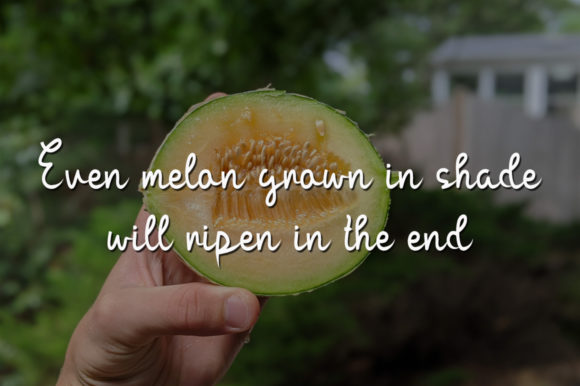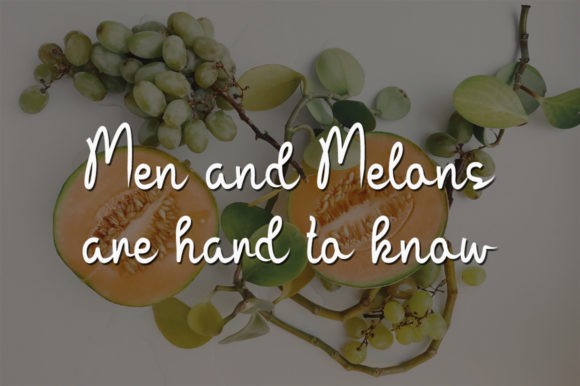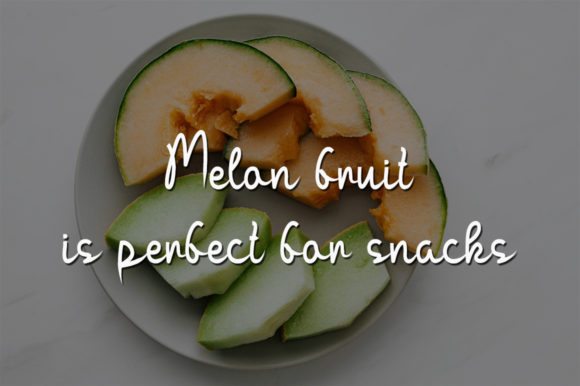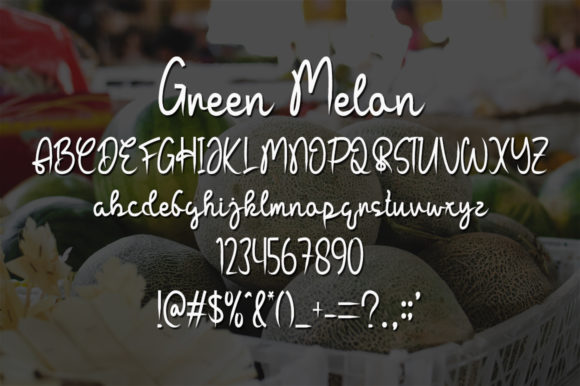
Introducing Green Melon Font: The Sweet and Sassy Cursive Handwritten Font
Are you tired of using the same old fonts for your designs? Look no further! Green Melon Font is here to add a touch of sweetness and elegance to your creations. This beautiful cursive handwritten font is perfect for designers and crafters who want to add a personal touch to their work.
What makes Green Melon Font special?
Green Melon Font is a unique and eye-catching font that boasts beautiful and round letters. Its cursive design gives it a playful and whimsical feel, making it ideal for a variety of design projects. Whether you’re creating personalized gifts, branding materials, or social media graphics, Green Melon Font is sure to make your designs stand out.
Key Features of Green Melon Font
- Sweet and cursive design: Green Melon Font has a lovely cursive design that adds a touch of elegance to your designs.
- Beautiful and round letters: The font features beautiful and round letters that are perfect for creating personalized designs.
- Ideal for designs: Green Melon Font is perfect for a variety of design projects, including personalized gifts, branding materials, and social media graphics.
Why Choose Green Melon Font?
There are many reasons why Green Melon Font is the perfect choice for your designs. Here are just a few:
- Unique and eye-catching: Green Melon Font is a unique and eye-catching font that will make your designs stand out from the crowd.
- Personal touch: The font adds a personal touch to your designs, making them perfect for personalized gifts and branding materials.
- Versatile: Green Melon Font is versatile and can be used for a variety of design projects, from social media graphics to wedding invitations.
Design Ideas Using Green Melon Font
Green Melon Font is perfect for a variety of design projects. Here are some ideas to get you started:
- Personalized gifts: Use Green Melon Font to create personalized gifts, such as customized mugs, t-shirts, and tote bags.
- Branding materials: Use the font to create branding materials, such as logos, business cards, and brochures.
- Social media graphics: Use Green Melon Font to create eye-catching social media graphics, such as Facebook posts and Instagram stories.
- Wedding invitations: Use the font to create beautiful and elegant wedding invitations.
Green Melon Font is a beautiful and unique cursive handwritten font that’s perfect for designers and crafters. Its sweet and sassy design makes it ideal for a variety of design projects, from personalized gifts to branding materials. With its easy-to-use design and versatile features, Green Melon Font is sure to become a favorite in your font library. So why wait? Download Green Melon Font today and add a touch of elegance to your designs!